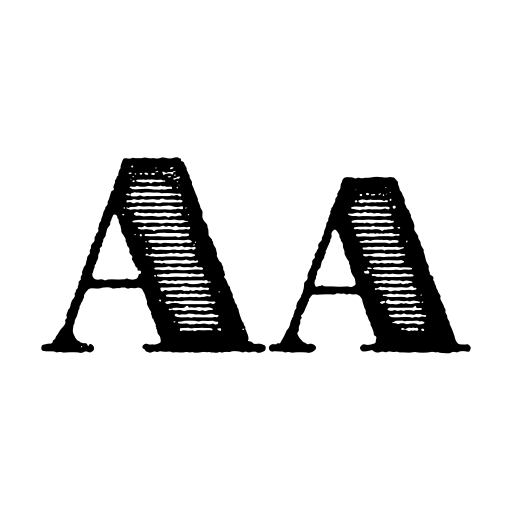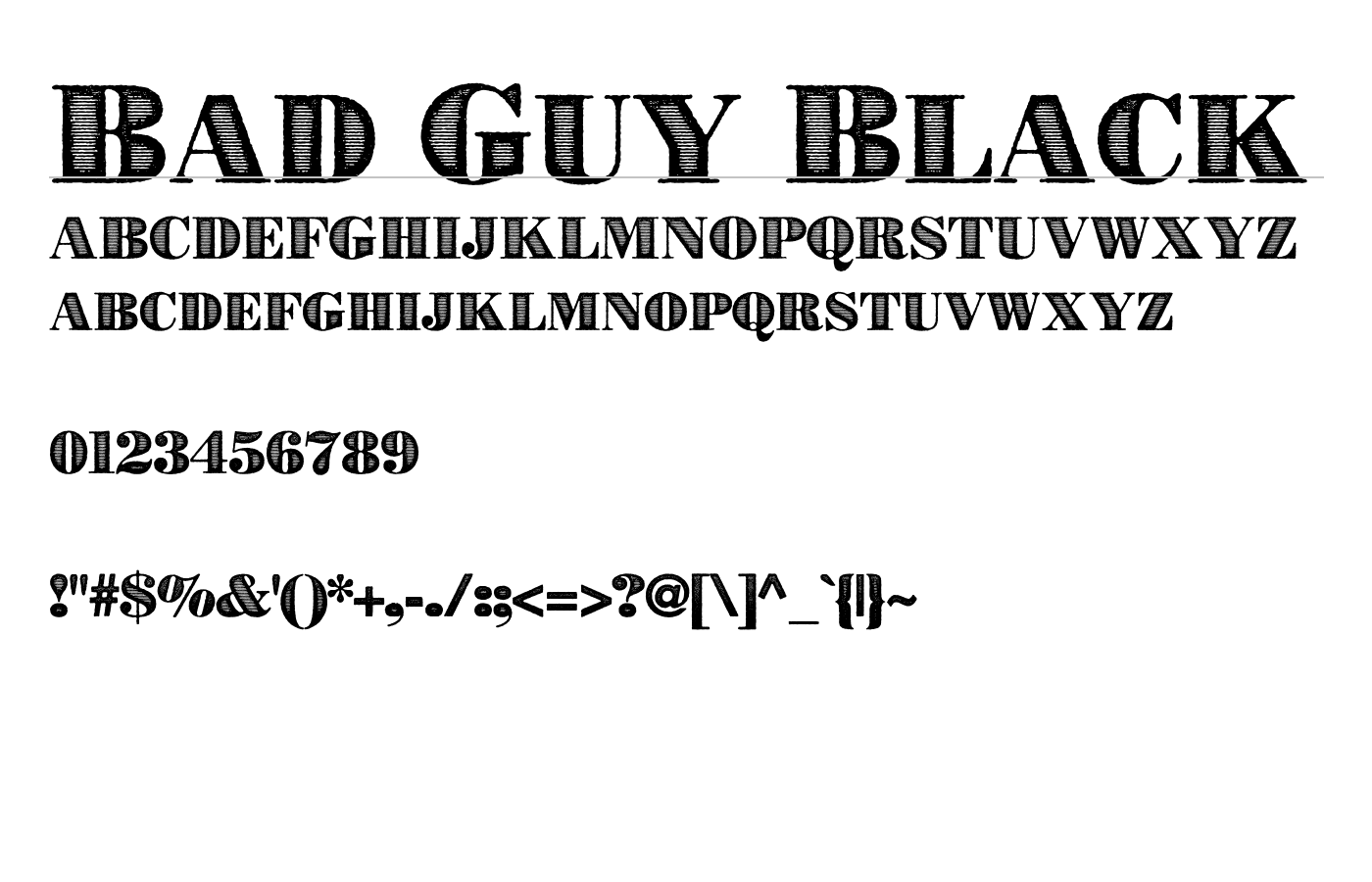
Bad Guy Black is a bold, serif display font with a vintage western feel, featuring strong vertical contrast and textured shading that adds character and depth. Its sturdy, condensed letterforms with bracketed serifs and sharp details make it perfect for creating impactful headlines, logos, and packaging that need a rugged, retro vibe with a touch of dramatic flair. This font works best when used to convey boldness and strength in branding and editorial design.
Bad Guy Black Font
About Bad Guy Black Font
| Font family | Bad Guy Black Font |
| Designer | S. John Ross |